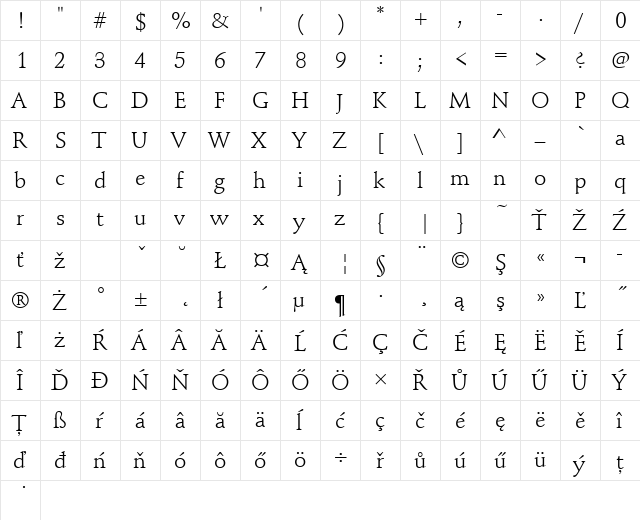
SchneidlerMedTEE Regular
SchneidlerMedTEE takes a measured approach to typography — its balanced proportions and neutral character make it a reliable workhorse for both digital and print work.